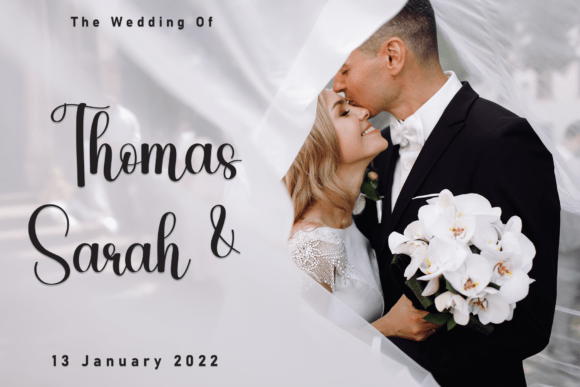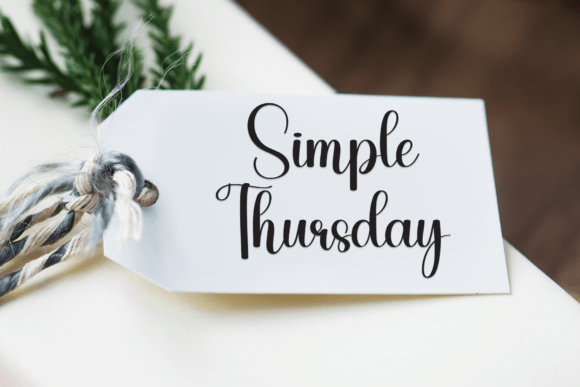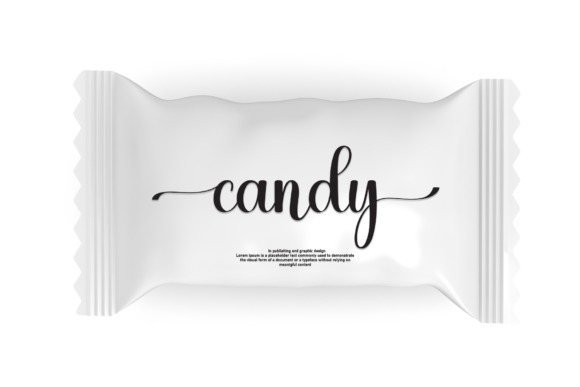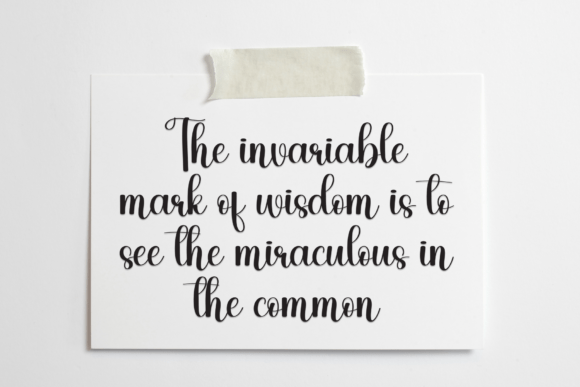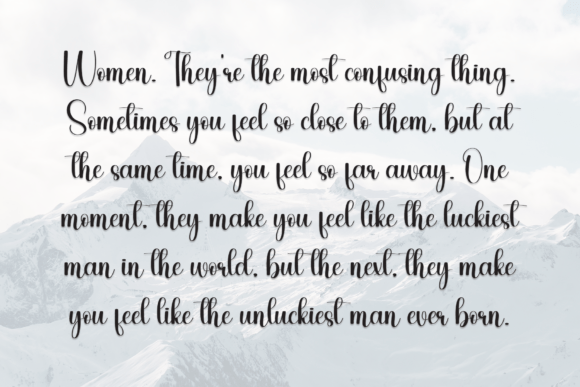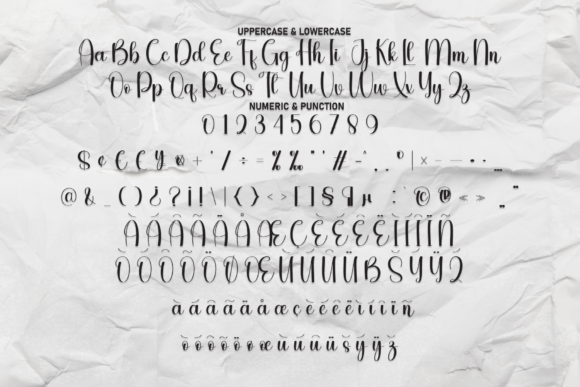
The Art of Elegant Typography: Unlocking the Power of Calligraphy Font
As a designer, there’s nothing quite like the thrill of discovering a font that perfectly captures the essence of your brand’s personality. For me, it was a late-night brainstorming session, surrounded by scribbled notes and discarded ideas, when I stumbled upon the perfect combination of elegance and sophistication – the Calligraphy Font.
Calligraphy Font is a stunning script font that embodies the fluidity and beauty of handwritten calligraphy. Its unique design features a harmonious balance of thick downstrokes and fine connectors, creating a rhythmic visual flow that’s simply captivating. Whether you’re looking to add a touch of luxury to your brand identity or create a signature watermark that exudes professionalism, Calligraphy Font is an invaluable tool for designers.
Key Features of Calligraphy Font
- Unique Characteristics: Calligraphy Font features elegant, cursive script with intricate flourishes and subtle variations in stroke width, giving it a sophisticated and artistic touch.
- Language Support: The font supports a wide range of languages, including English, Spanish, French, German, Italian, and many others, making it a versatile choice for global applications.
- Stylistic Sets and Alternates: Calligraphy Font includes multiple stylistic sets and alternates, allowing users to customize the font’s appearance and create unique variations.
- Smart Swashes and Ligatures: The font includes smart swashes and ligatures, which automatically adjust to the surrounding text, creating a seamless and polished look.
Calligraphy Font Review
Overall, I’m quite impressed with the Calligraphy Font. It’s a beautiful, elegant font that adds a touch of sophistication to any design project. Here are some of the things that work well:
- ✨ Elegant and refined look: The font is perfect for creating a high-end or luxury feel in your designs.
- ✨ Versatile: It works well for a variety of projects, from wedding invitations to business cards and more.
- ✨ Easy to read: Despite its decorative nature, the font is still easy to read, making it a great choice for text-heavy designs.
- ⚠️ Limited expressiveness: While the font is beautiful, it can feel a bit generic and lacks the expressiveness of some other calligraphy fonts.
- ⚠️ Limited font sizes: At smaller font sizes, the font can become difficult to read and may require additional adjustments to make it legible.
In terms of overall impression, I’d say the Calligraphy Font is a solid choice for designers looking to add a touch of elegance to their projects. While it may not be the most expressive font out there, it’s still a great option for many design applications.
Tips for Getting the Most Out of Calligraphy Font
To get the most out of a calligraphy font, experiment with different font sizes, colors, and styles to create a unique and eye-catching design. You can also use calligraphy fonts in combination with other design elements, such as images and graphics, to create a visually appealing design.
Calligraphy fonts are commonly used for:
- Special occasion cards and gifts
- Decorative typography and graphics Alternatives to Calligraphy Font